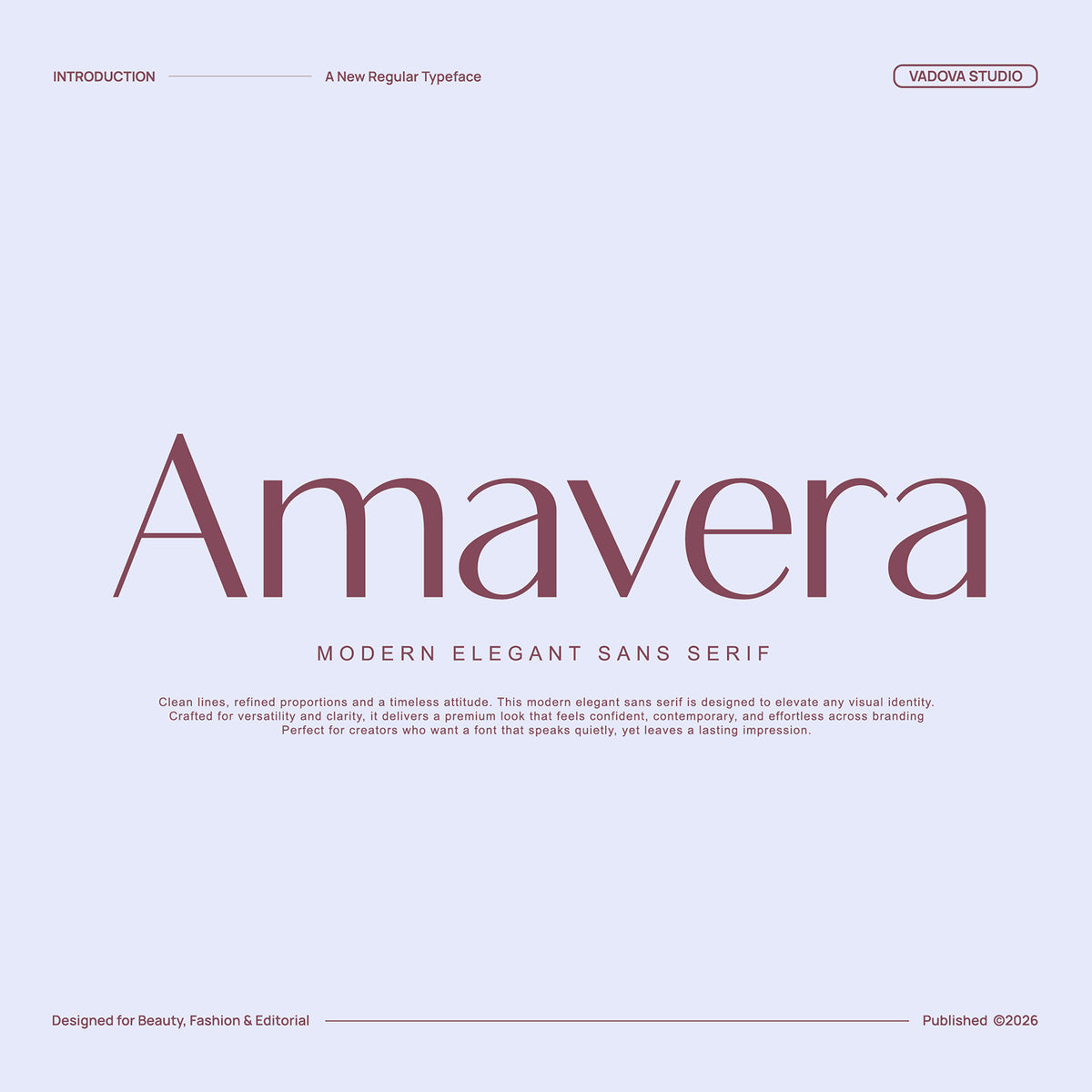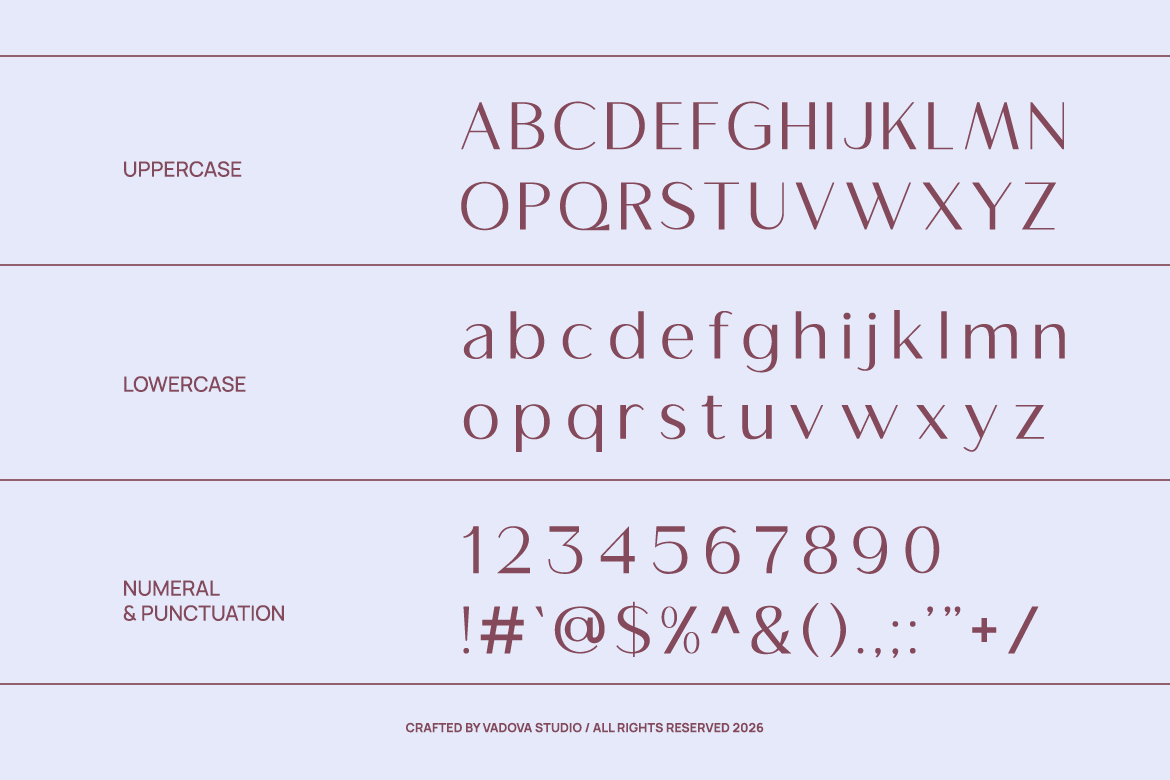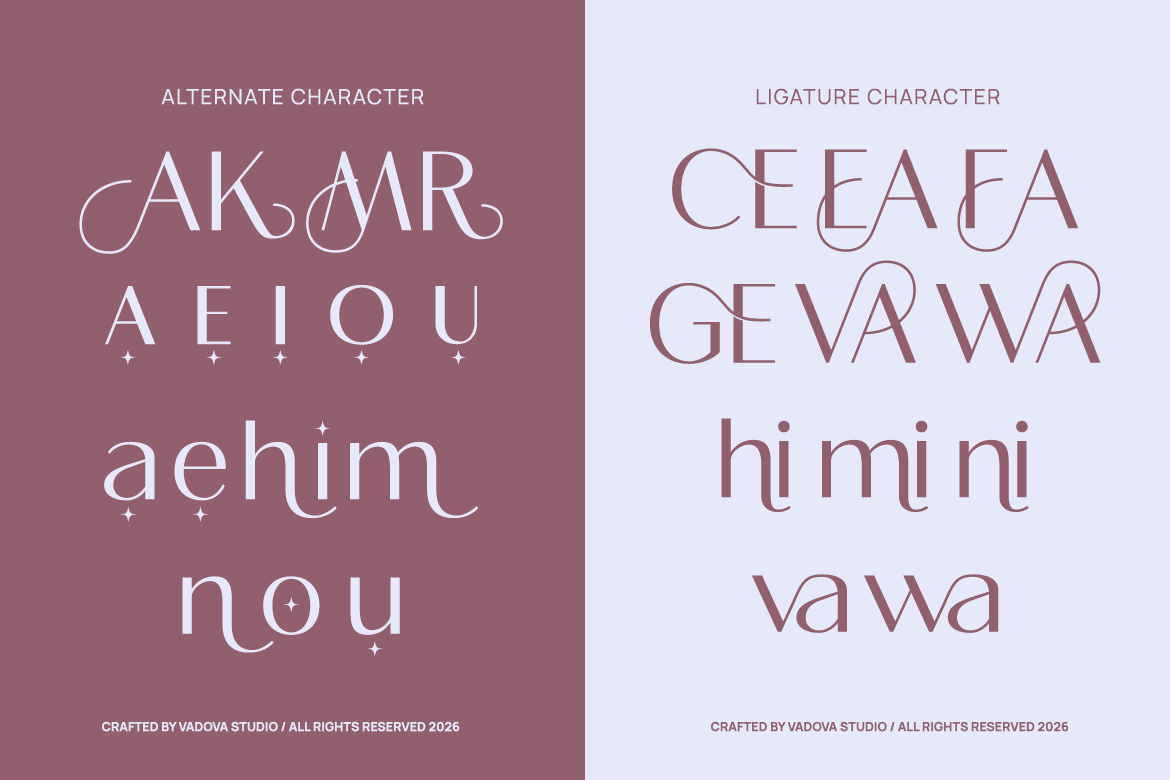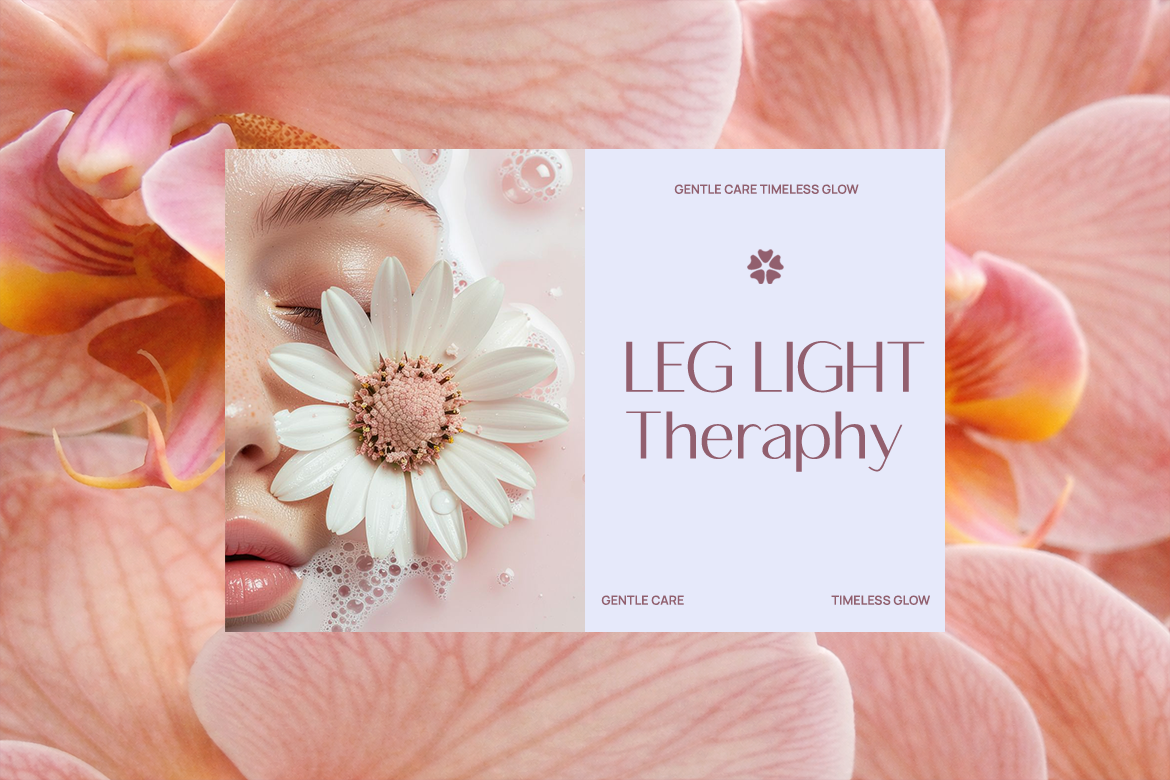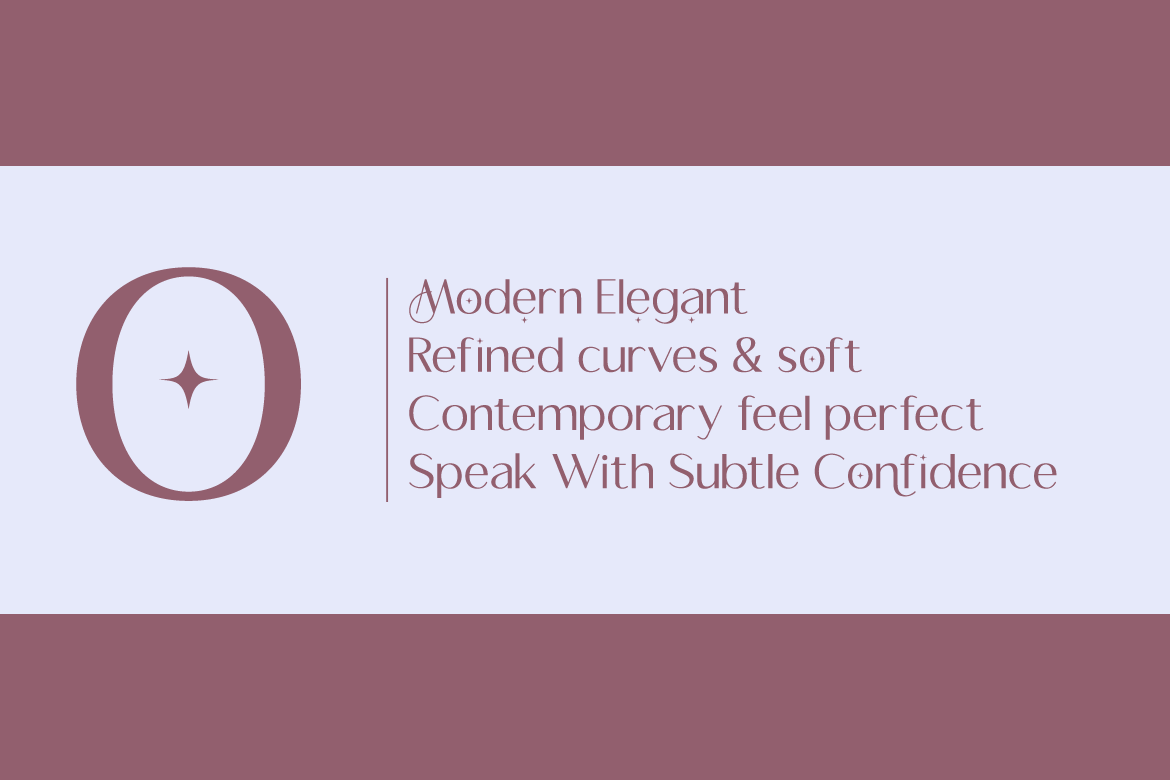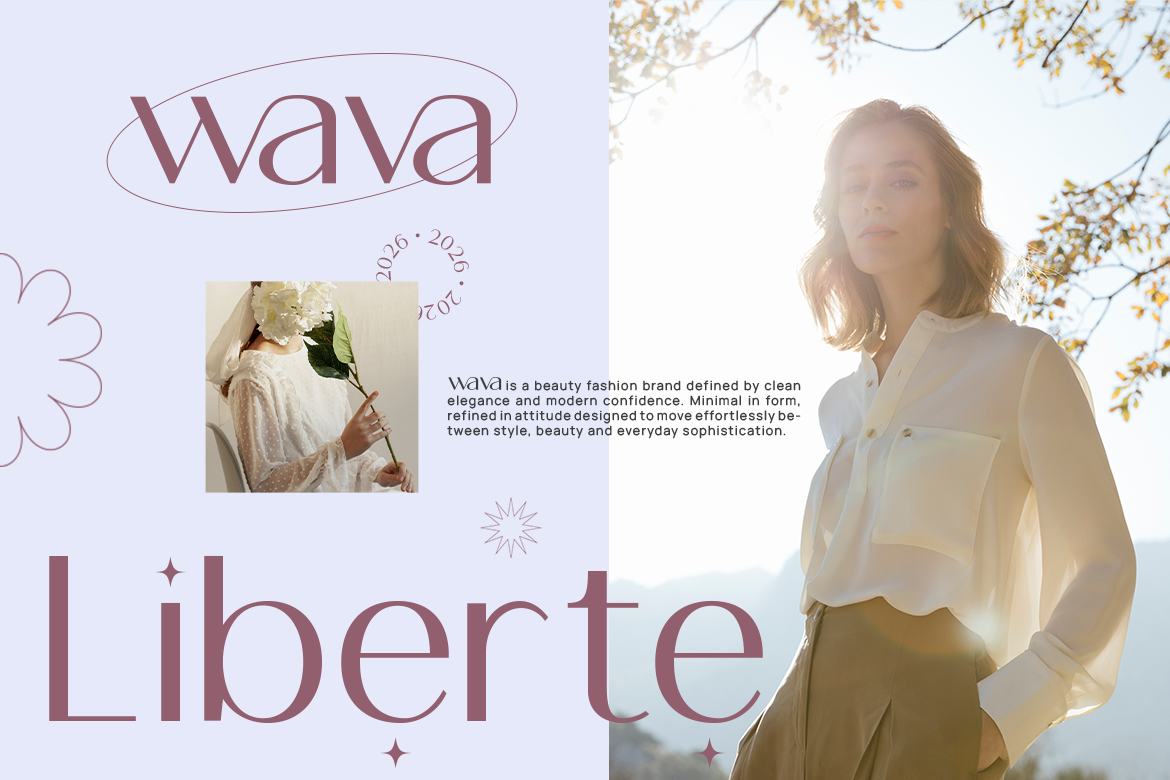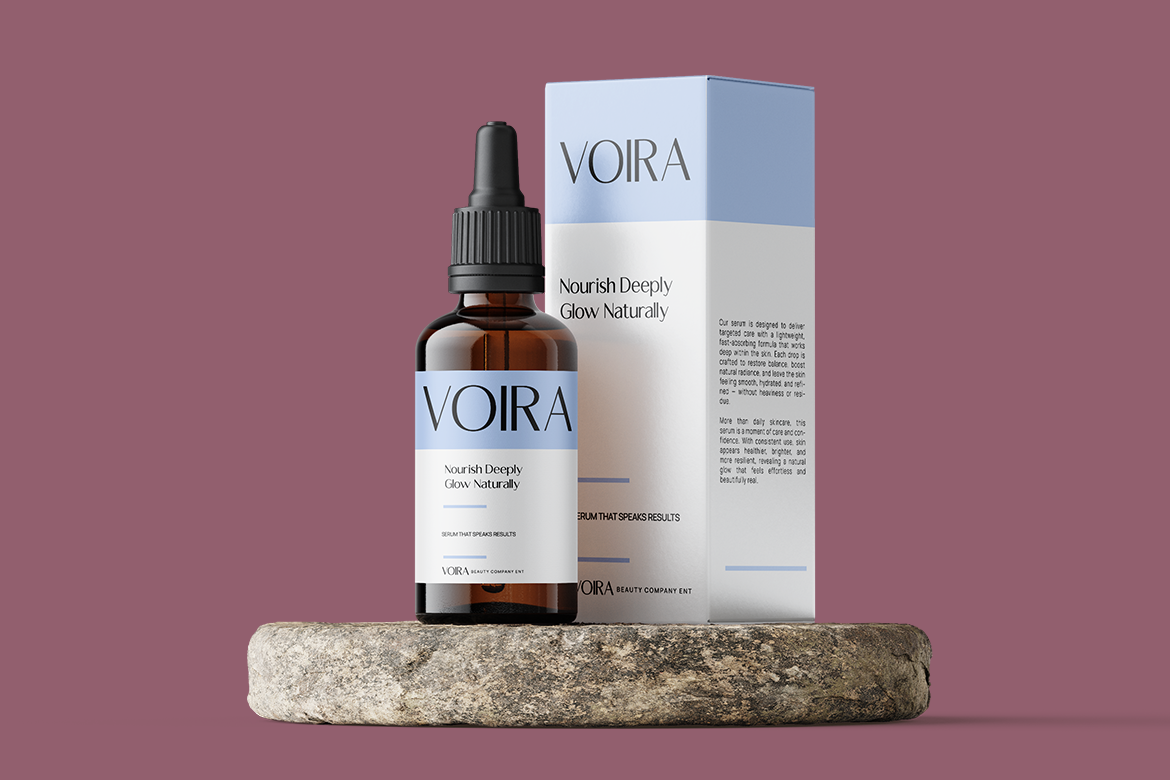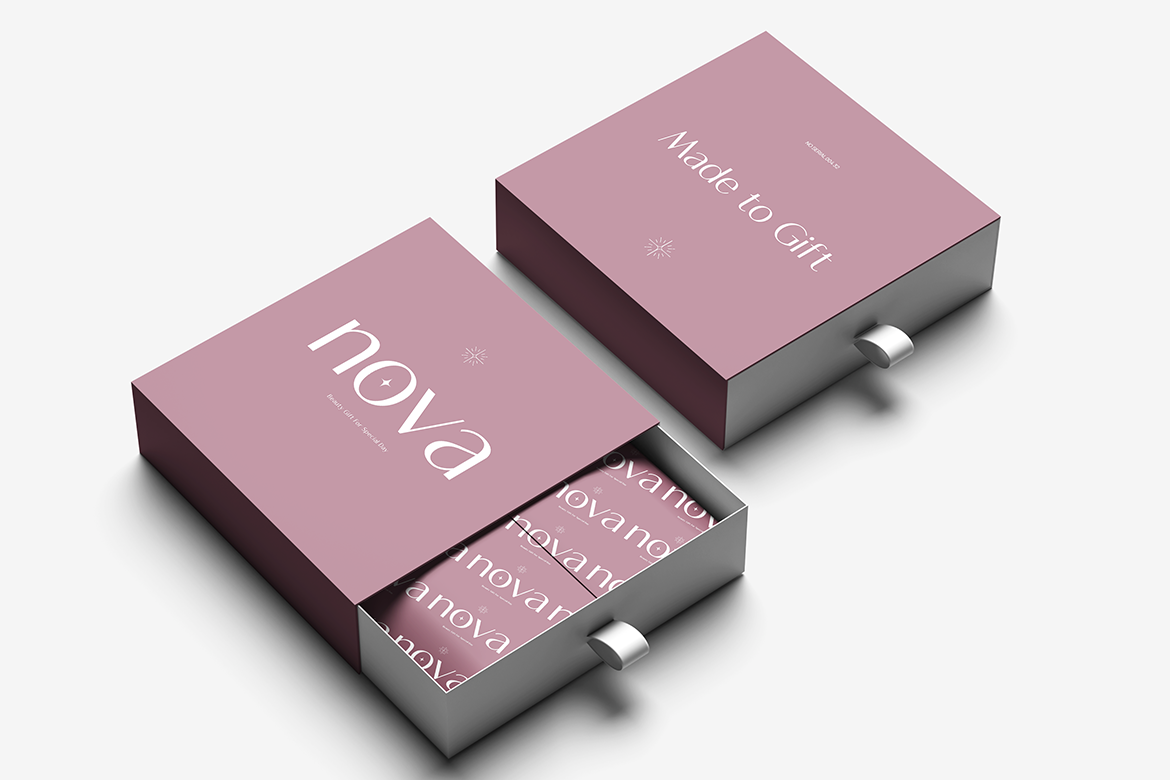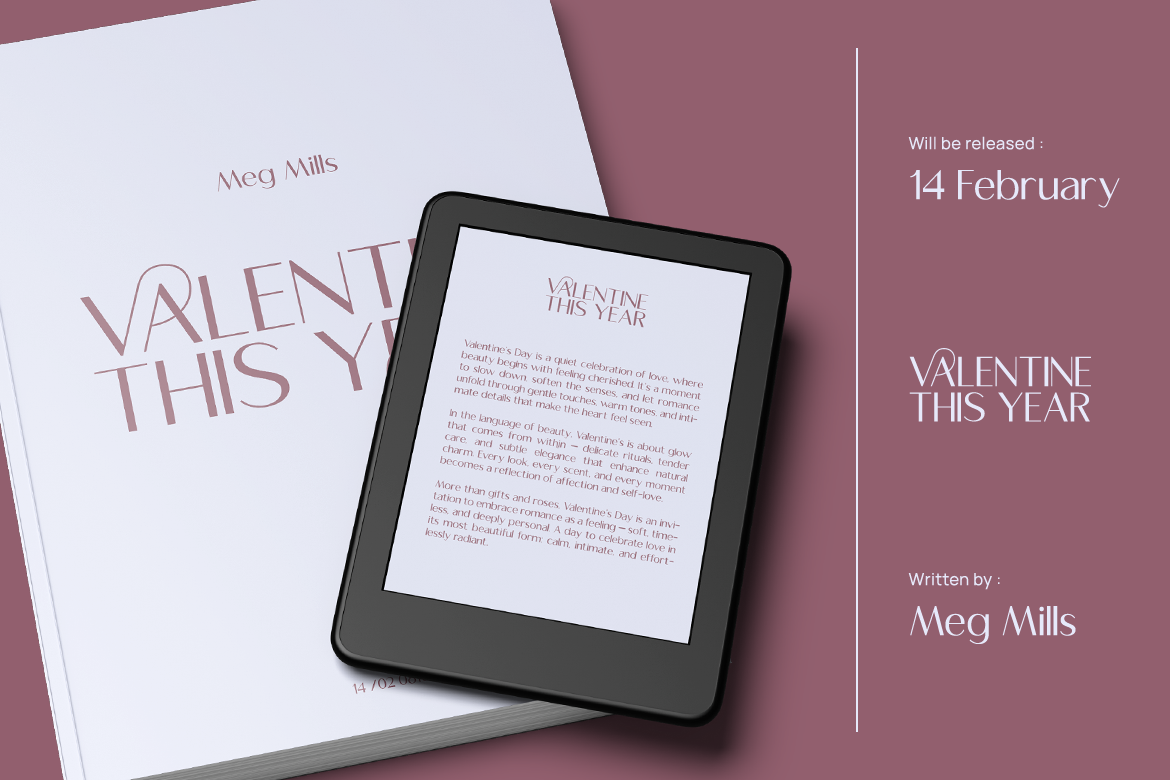
Amavera Modern Elegant Sans Serif Font
Amavera is a modern elegant sans serif typeface defined by clean lines, balanced proportions, and refined minimalism. The package includes uppercase, lowercase, numerals, and punctuation, carefully crafted for clarity and visual harmony. Designed with smooth curves and subtle contrast, it delivers a premium, fashion-forward aesthetic suitable for high-end visual identities.
Relevance and Uses Cases Amavera is designed to bring a sense of quiet luxury and modern refinement to visual identities. It works beautifully for fashion brands, beauty packaging, editorial layouts, lifestyle campaigns, lookbooks, and premium logo design. The balanced structure and elegant spacing make it effective for both large display headlines and sophisticated brand communications.
Amavera is a modern sans serif typeface featuring clean lines, balanced proportions, and subtle contrast. It includes uppercase and lowercase characters, numerals, and punctuation, and is available in TTF, OTF, and WOFF formats.